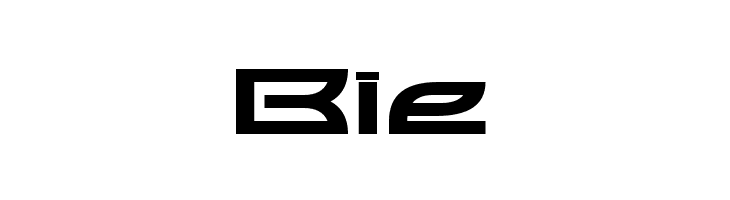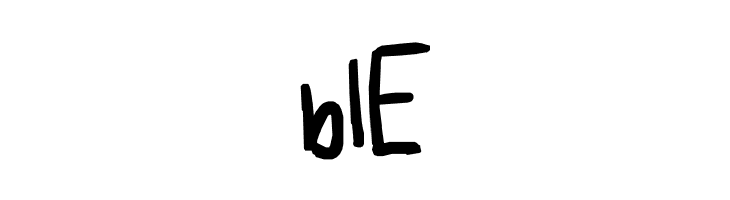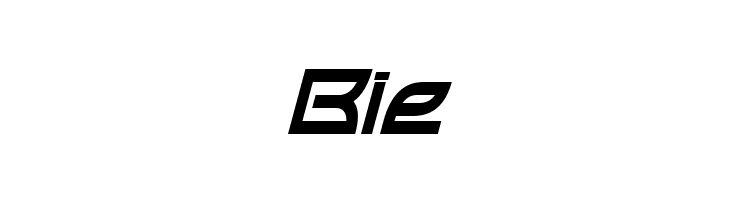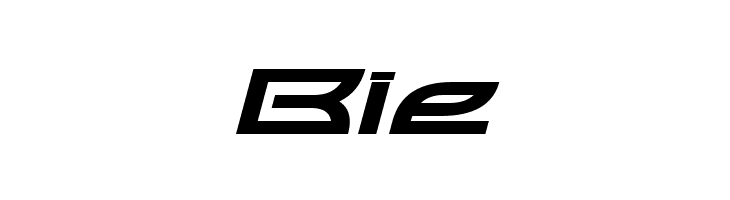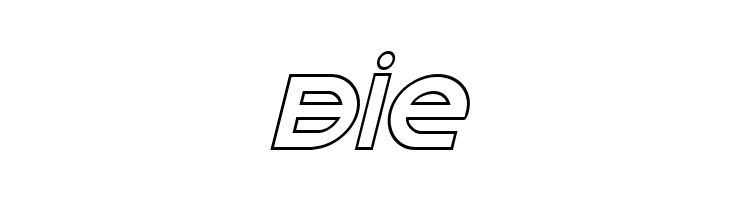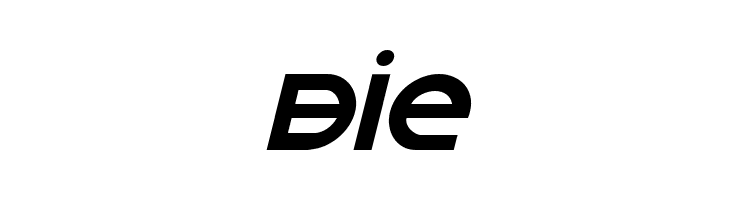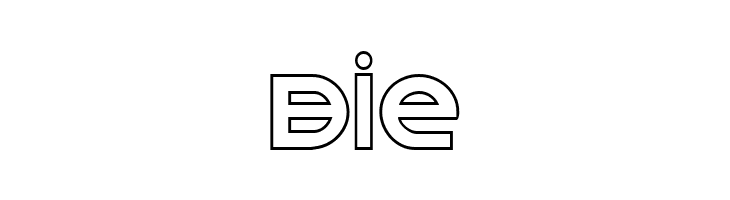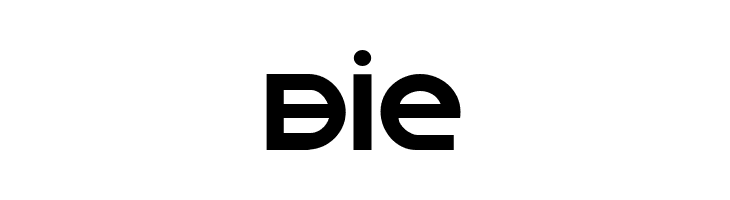
• Opilio Italic
A modern italic font with angular, slanted letterforms and a dynamic, futuristic style.
• Opilio Outline Italic
A modern, italicized outline font with a futuristic and sleek design.
• Opilio Outline Regular
A modern, geometric outline font with sharp, angular shapes.
• Opilio Regular
A geometric, modern font with angular and rounded elements, offering a futuristic and bold appearance.
• Opium Roadie Regular
A bold, modern font with a stencil-like, industrial design.
• opposite
• OpTic
A futuristic, geometric font with sharp angles and a sleek design.
• OpTic Condensed
A futuristic, geometric font with condensed letterforms and angular cuts.
• OpTic Condensed Italic
A sleek, futuristic, condensed italic font with sharp angles.
• OpTic Italic
A sleek, italicized font with a futuristic and dynamic style.